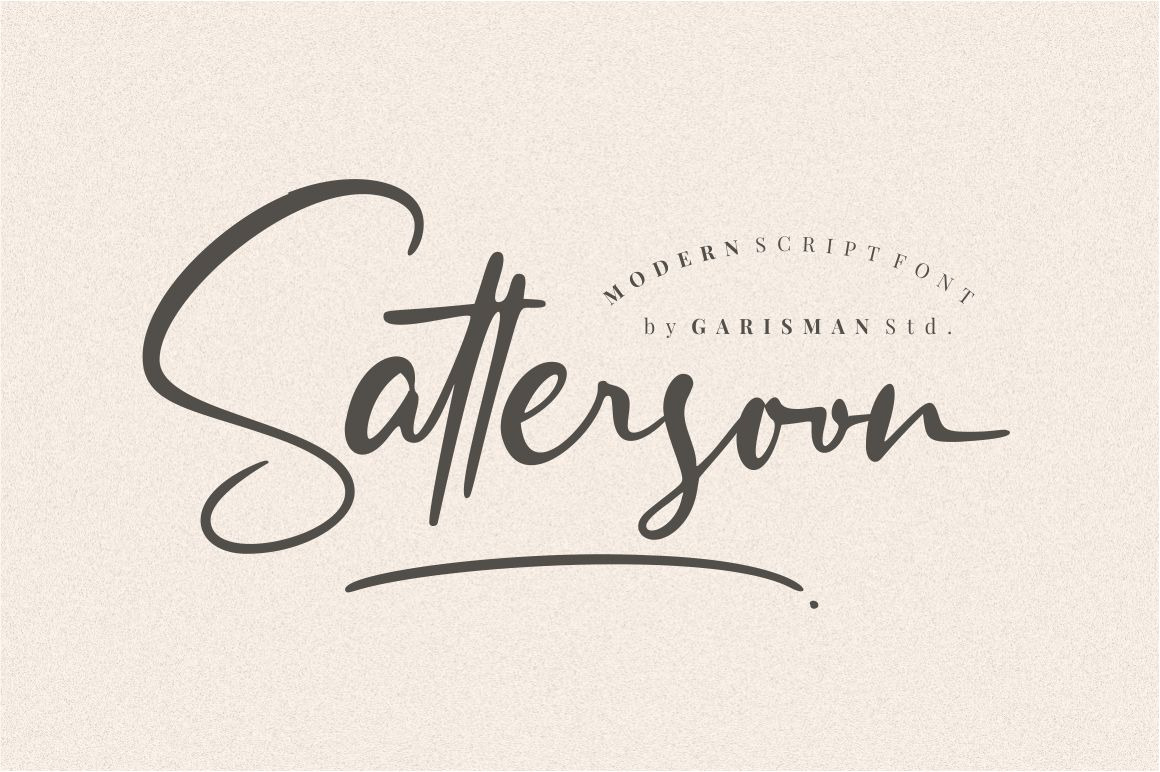
Sattersoon - Modern Script Font
Sattersoon is made naturally modern script with the ending swashes and more than 170 ligatures. With the unique Opentype in it and the ligature will add aesthetic value to your design product. Available in this file are Sattersoon Swash which you can unite into an amazing design.
- 172 Ligatures included
- Versatile for poster, logotype, labels, book cover